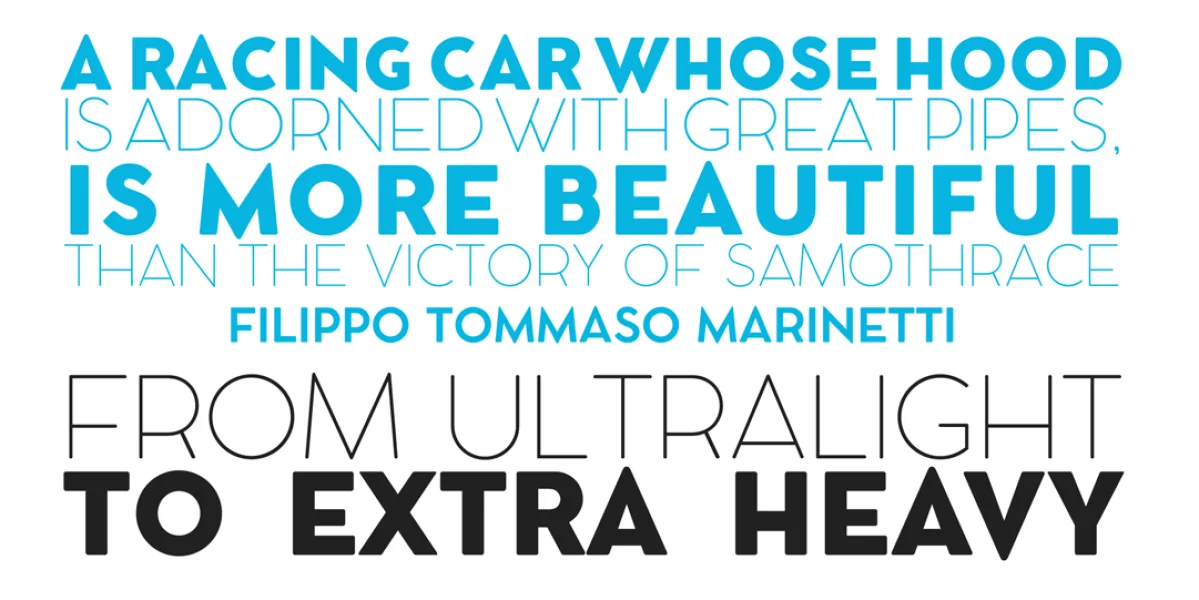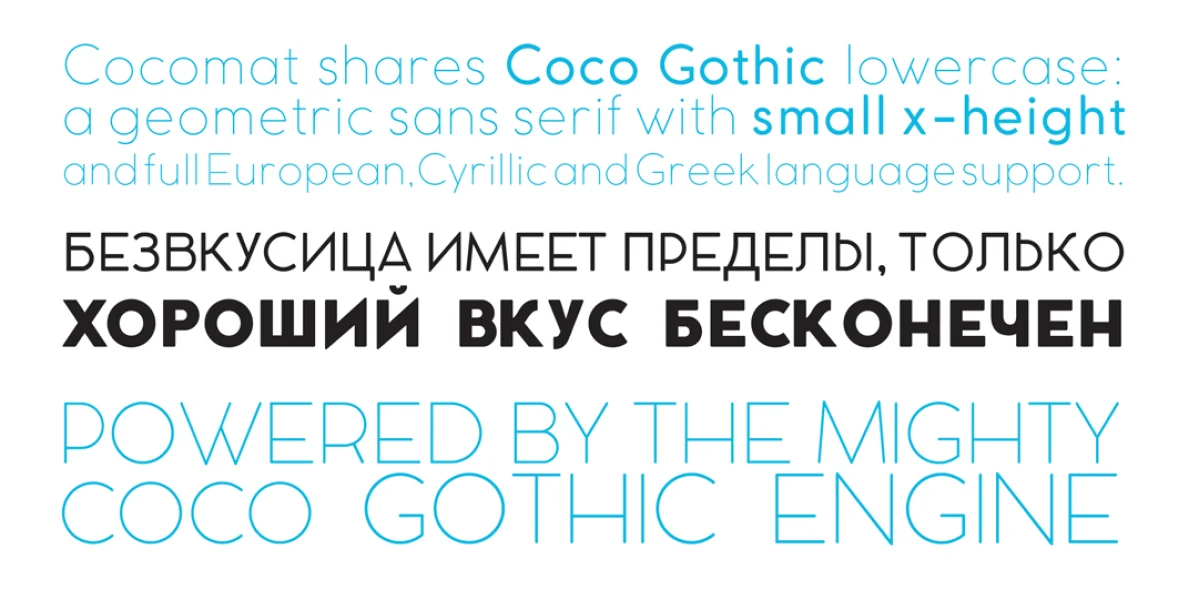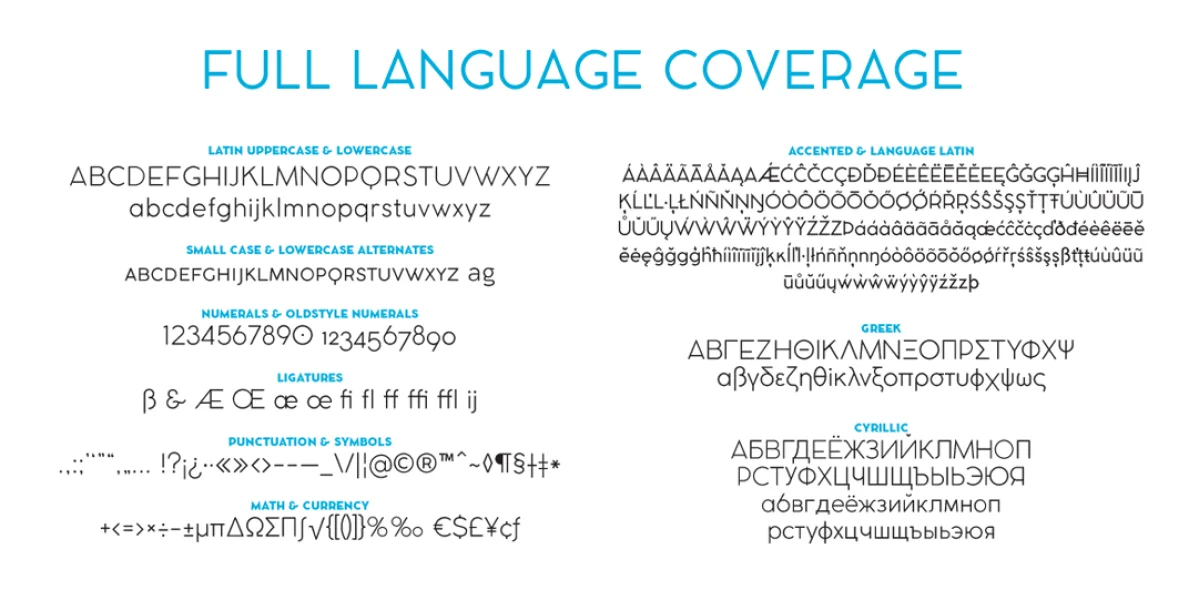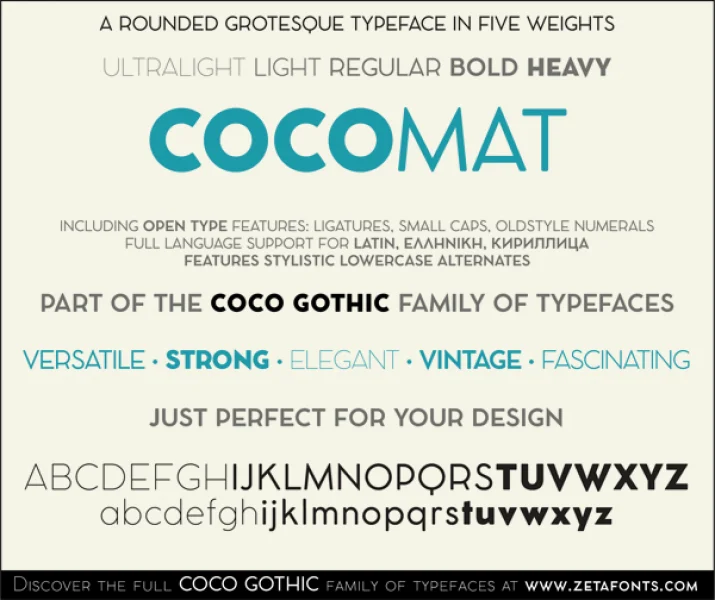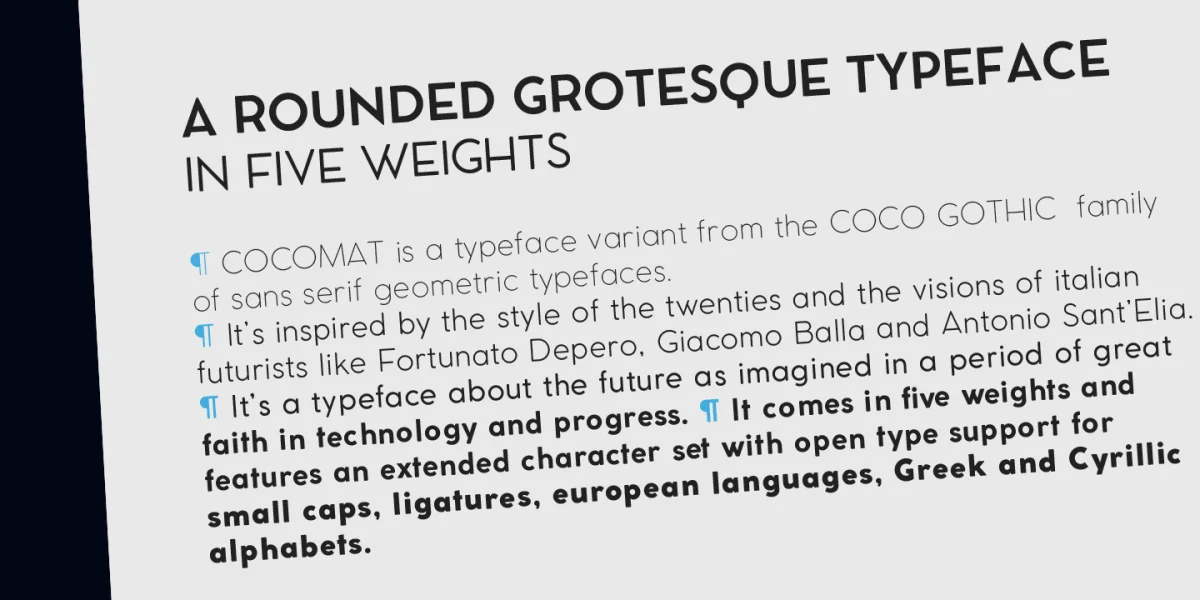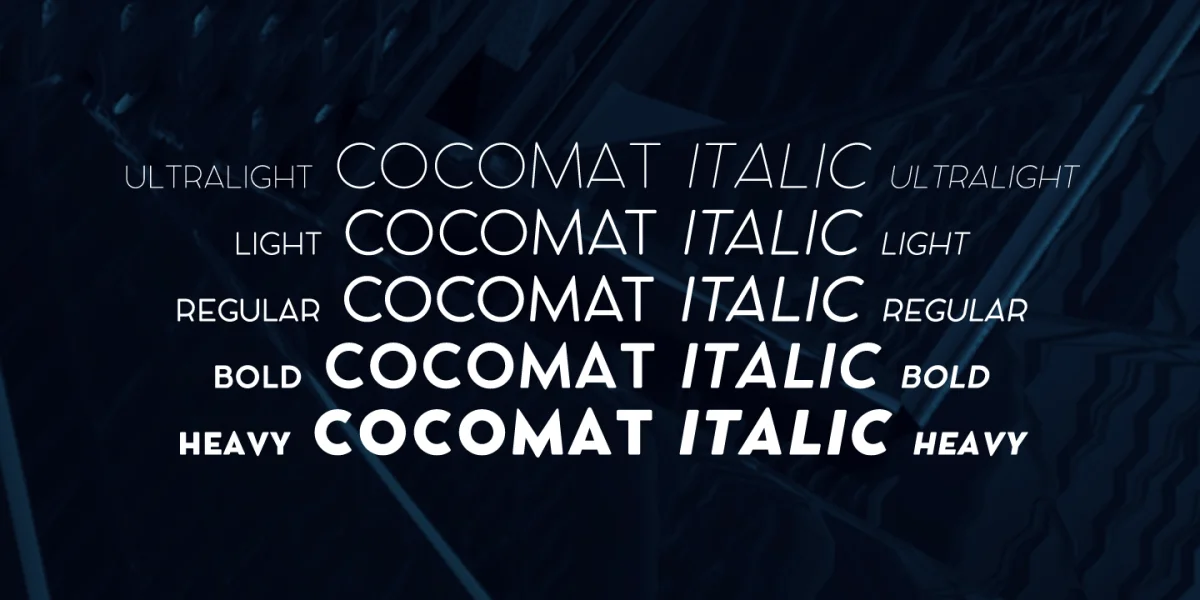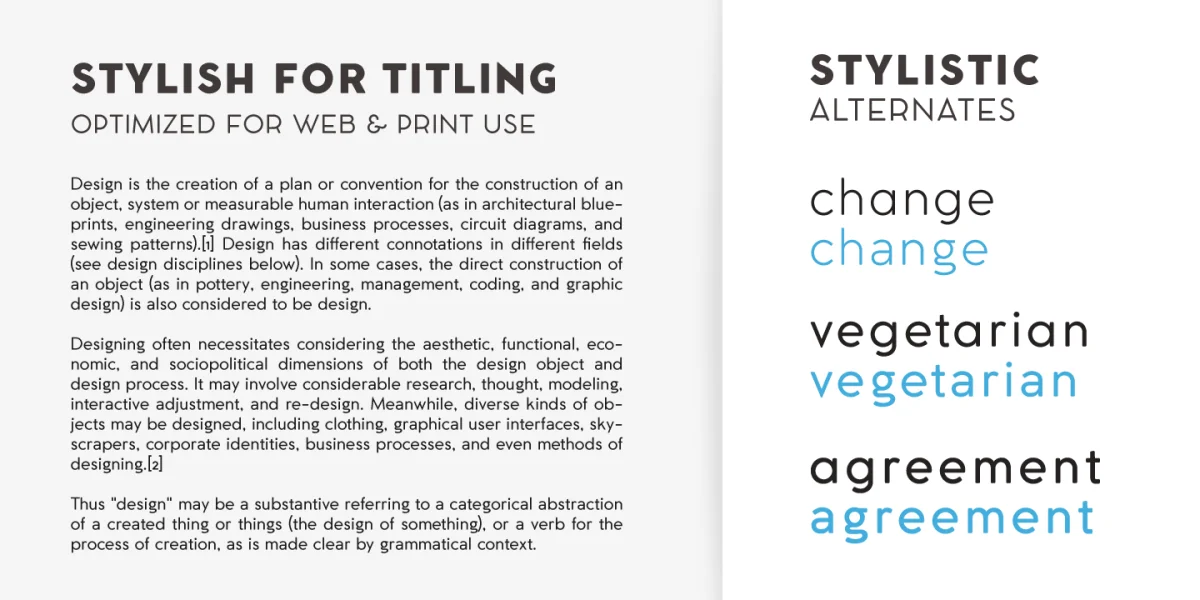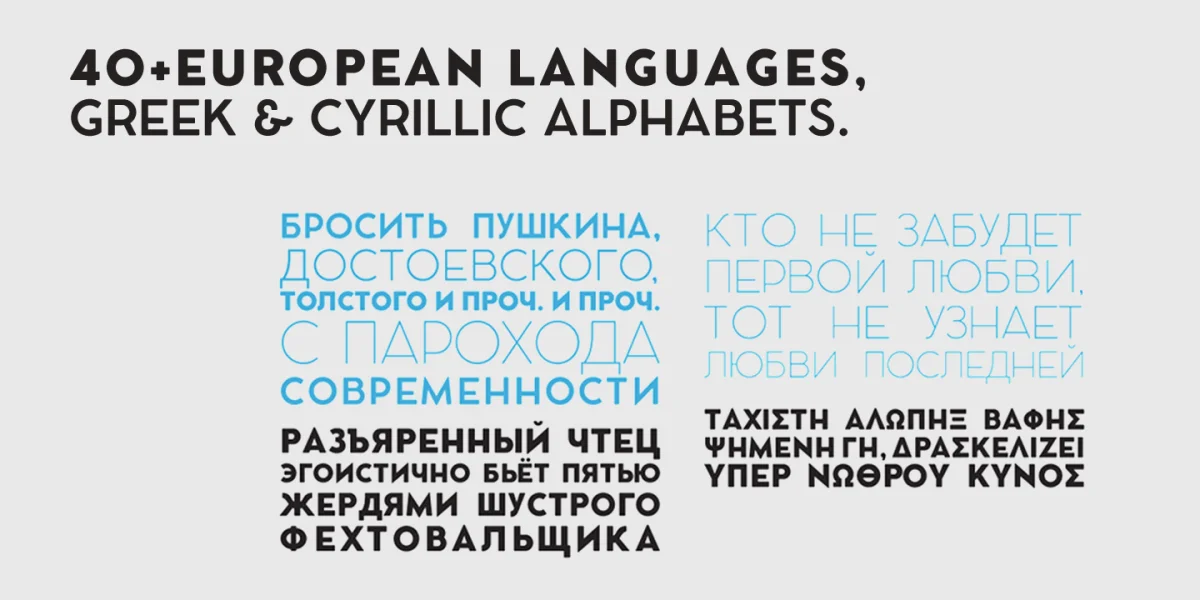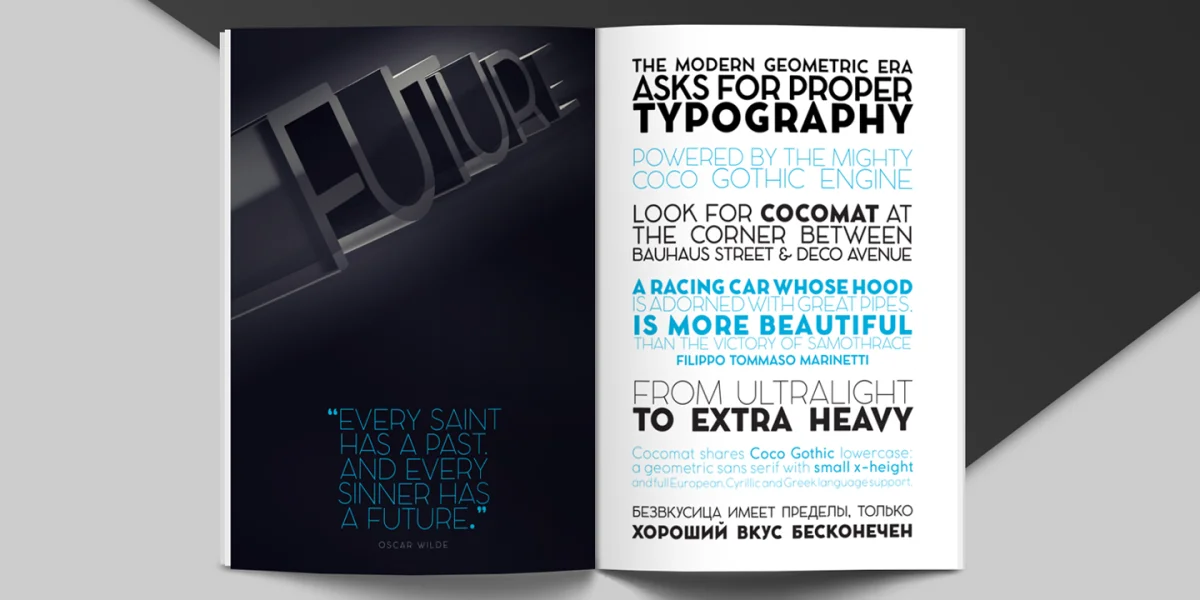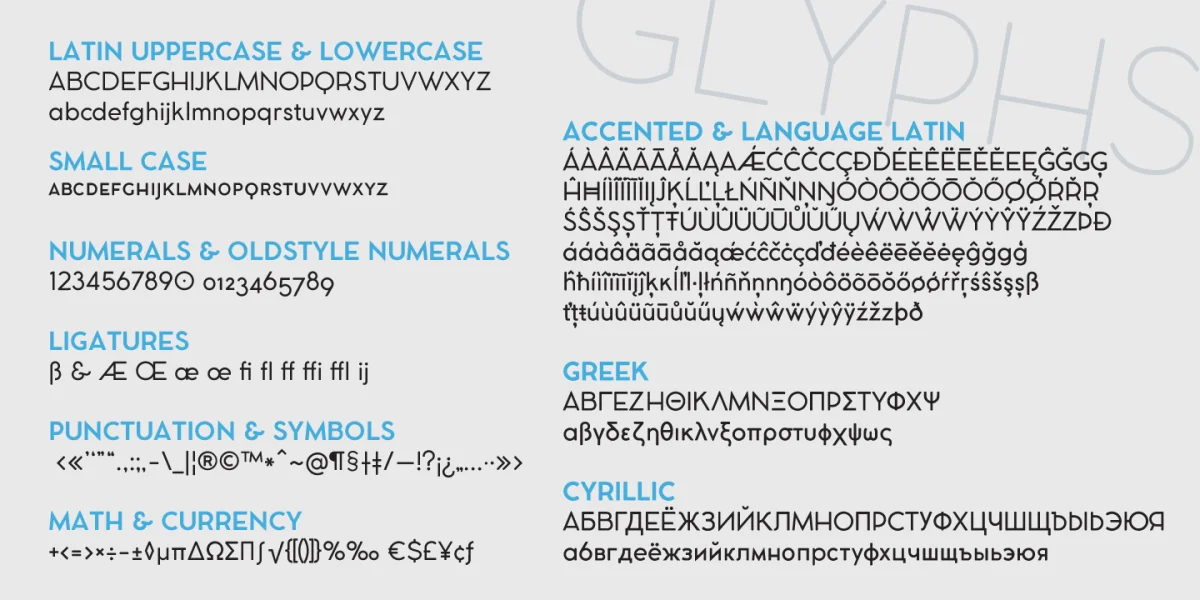
COCOMAT is a typeface variant from the COCO GOTHIC family of sans serif geometric typefaces. It’s inspired by the style of the twenties and the visions of italian futurists like Fortunato Depero, Giacomo Balla and Antonio Sant’Elia. It’s a typeface about the future as imagined in a period of great faith in technology and progress. It comes in five weights and features an extended character set with open type support for small caps, ligatures, European languages, Greek and Cyrillic alphabets.